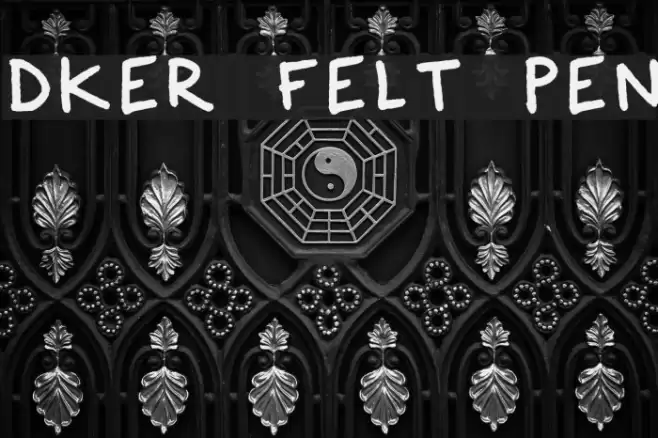
Dker Felt Pen Font
Dker Felt Pen Description
This font exudes a playful and casual vibe, reminiscent of handwriting with a felt-tip pen. The characters are bold and slightly irregular, giving them a friendly and approachable appearance. The strokes are consistent in width, contributing to a uniform look across all letters and numbers. The font maintains a balance between readability and style, making it suitable for informal contexts. Its rounded edges and slight slant add to the handwritten feel, while the spacing between characters is moderate, ensuring clarity and legibility.
- Proposed Projects: Ideal for children's books, casual invitations, greeting cards, and playful branding projects.
- Overall Style: Casual
- Use Case: Headlines, Informal Text, Branding